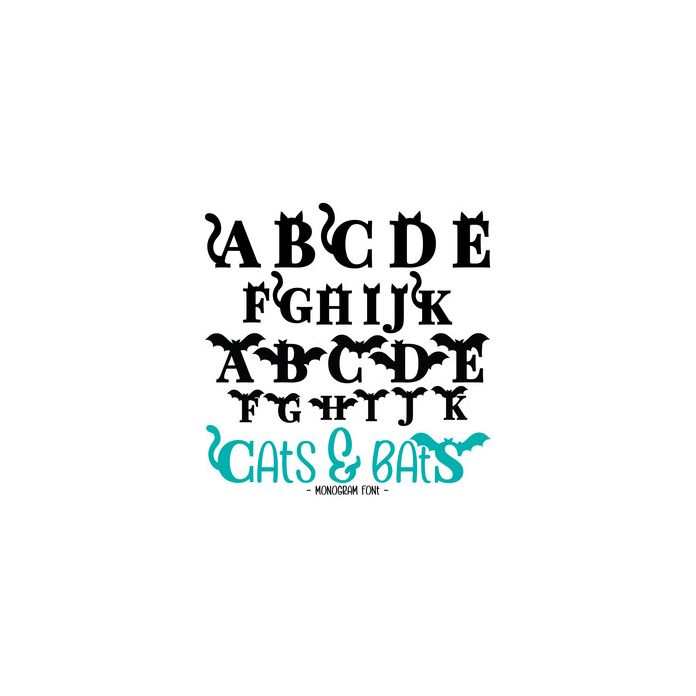
Cats & Bats Halloween Monogram Font. Includes 26 cat themed letters and 26 bat themed letters, perfect to use alone or paired with other fonts to create statement monogram letters. All are assigned to an upper case or lower case letter starting with 'A' or can be accessed via glyphs. For more design ideas, coordinating designs & products and inspiration, please visit my blog http://www.sarahhurleyblog.com